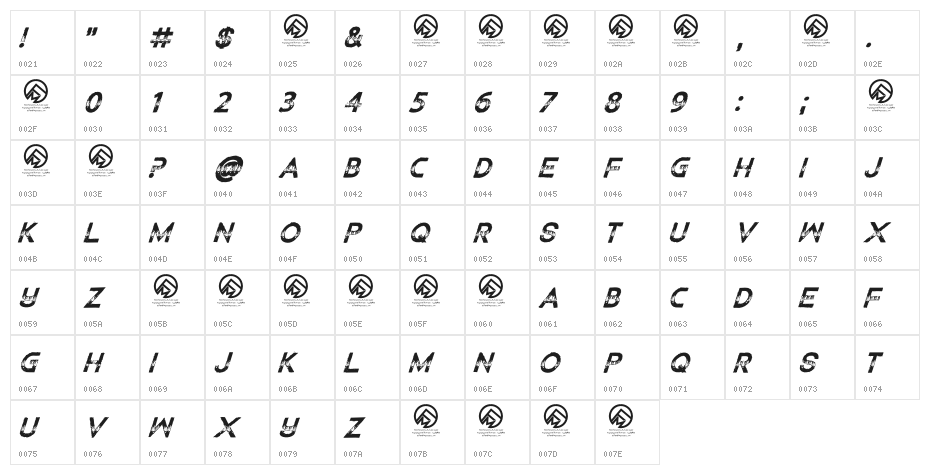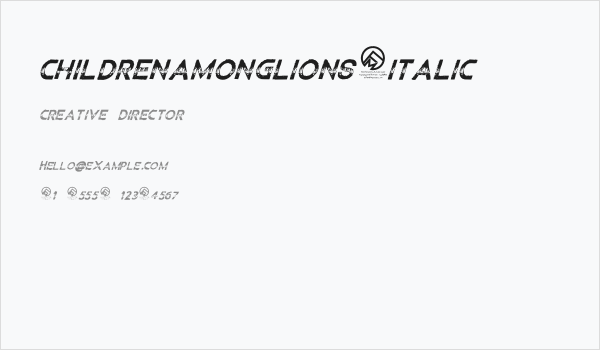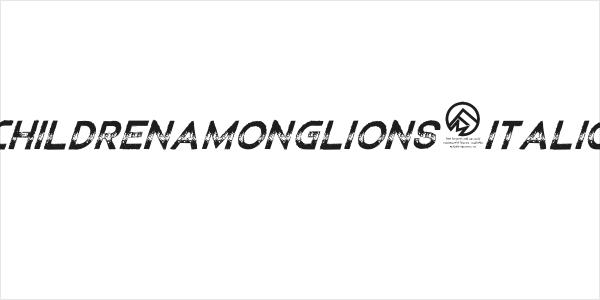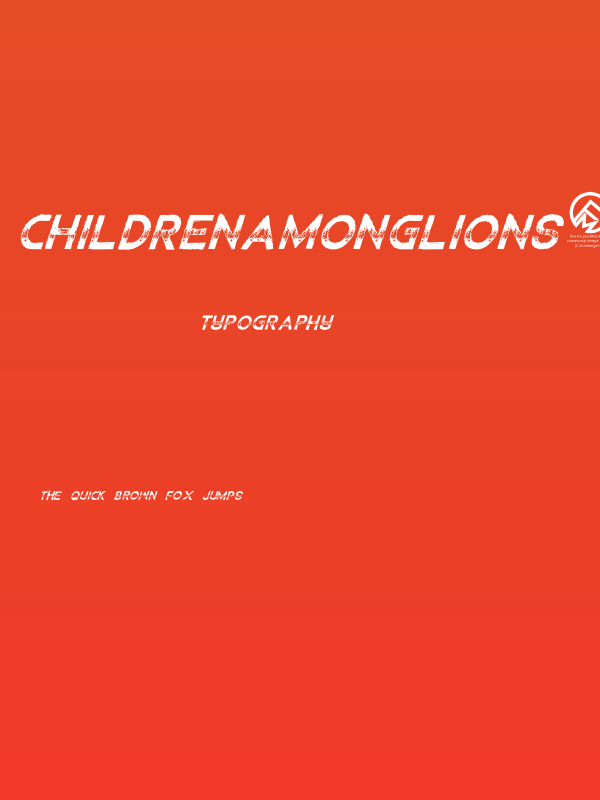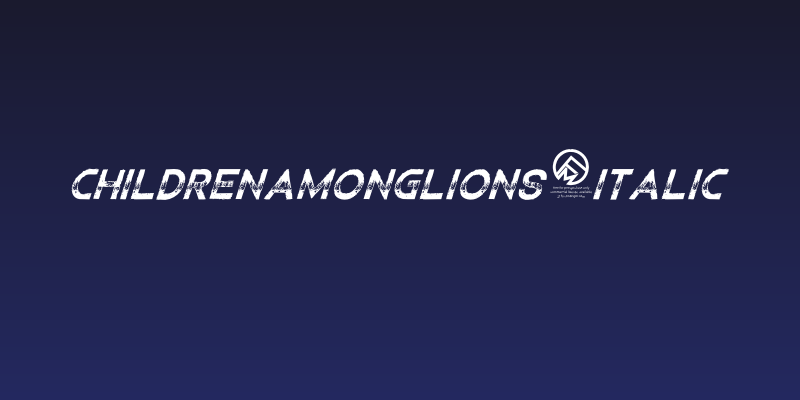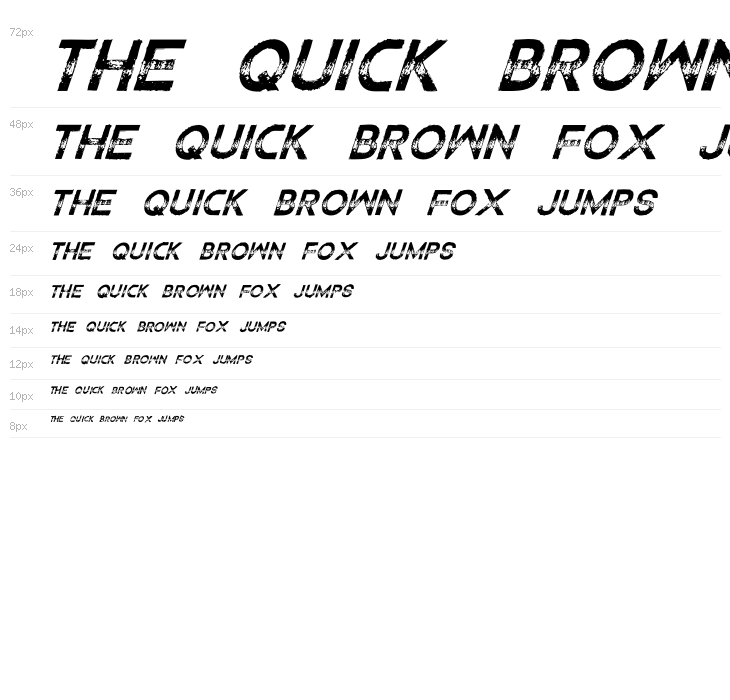
ChildrenAmongLions-Italic Font
ChildrenAmongLions-Italic Description
This font features a bold, italicized style with a distressed texture that gives it a rugged, edgy appearance. The uppercase and lowercase letters maintain a consistent slant, enhancing the dynamic and energetic feel. The numbers and special characters follow the same design, ensuring uniformity across all elements. The distressed effect adds a layer of visual interest, making it suitable for projects that require a gritty or urban aesthetic. The boldness of the font ensures readability, while the italic slant adds a sense of motion and urgency.
| Overall Style | Modern, Edgy |
| Proposed Projects | Ideal for posters, album covers, streetwear branding, and event flyers. |